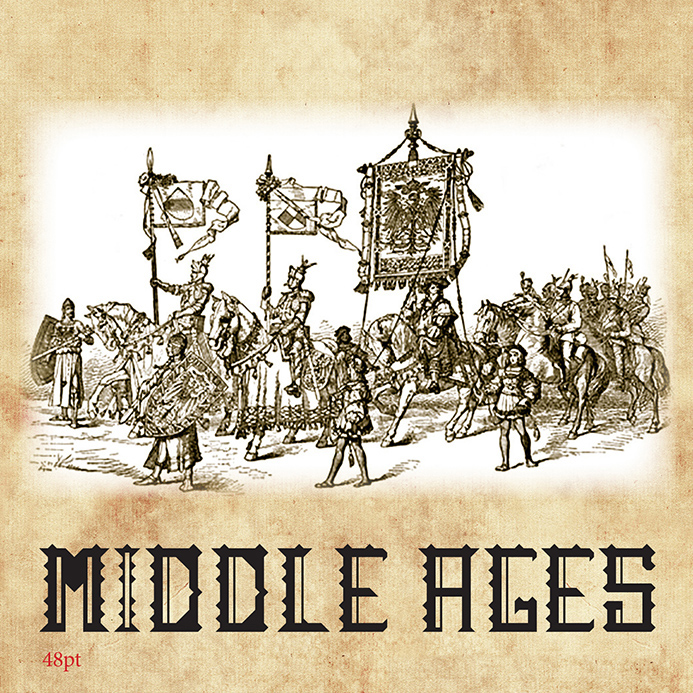
Medieval Block is a typeface created using the Fontstruct website.
The inspiration comes from the weapons used during medieval
times. It is a twist on the font Impact Regular with subtle hints of
Old English. I used seven diferent shapes to create the font.
This font is meant to stand out and make a statement.
Love the execution!
Some changes to the font will make the font more balanced, like letter "Z" is just too wide. You can use half diagonal blocks to make it narrower.